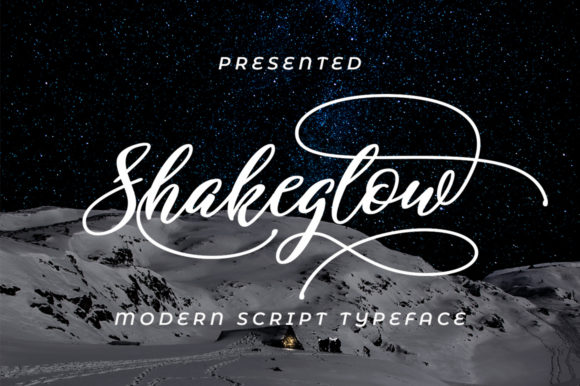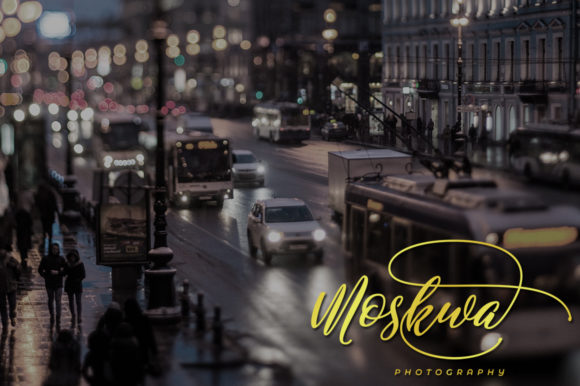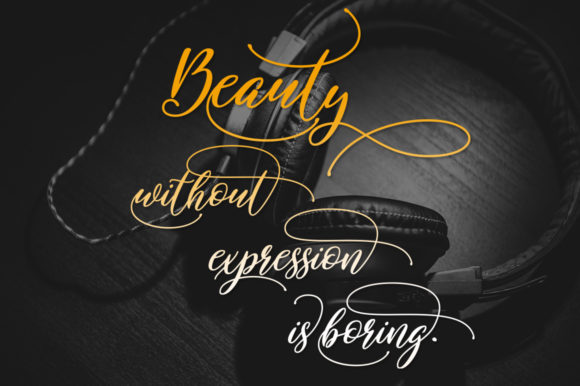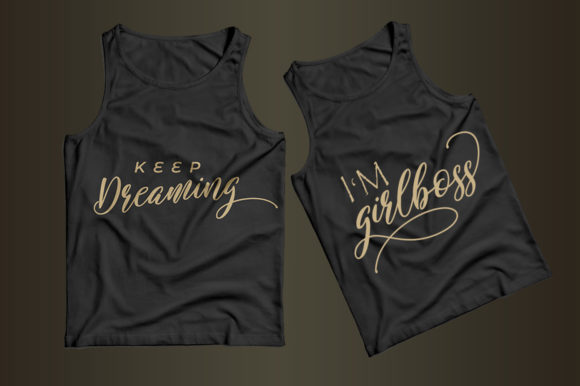
About Shakeglow Script Font
The Shakeglow is an elegant combination of a script and a narrow modern serif. It is slender, feminine and classy, while still maintaining a friendly feel. Its versatile style works perfectly for fashion, e-commerce brands, trend blogs, wedding boutiques or any business that wants to appear upscale and chic.
With its many various stylistic characters, the Shakeglow is perfect for creating original and functional designs.
You can use the Shakeglow script for high-end logotypes and magazine headlines, but let’s not forget greeting cards, invitations, posters, book covers, ads and the various web and screen usages. The overall feel of the font is elegant and sophisticated with a touch of informal which is ideal if you want to convey a sense of class and style.